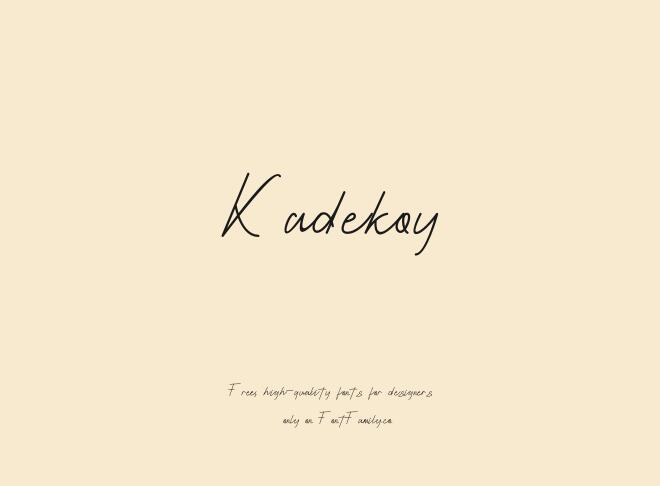
Kadekoy Font
Kadekoy Font is a remarkable handwritten font with a playful twist. Its modern and rounded characters make it perfect for a wide range of design projects, from social media posts to stationery designs. The font, released in 2021 by Creative Foundry Co., brings a unique blend of modernity and playfulness that stands out in the crowd. Its rounded edges give it a friendly appeal, while the playful curves add a touch of creativity. While similar to fonts like Poppins and Quicksand, Kadekoy Font offers a more personable touch. This makes it a fantastic choice for brands aiming to appear approachable yet professional. Its versatility makes it a favorite among designers, especially for projects that require a balance between fun and functionality.
Author | Creative Foundry Co. |